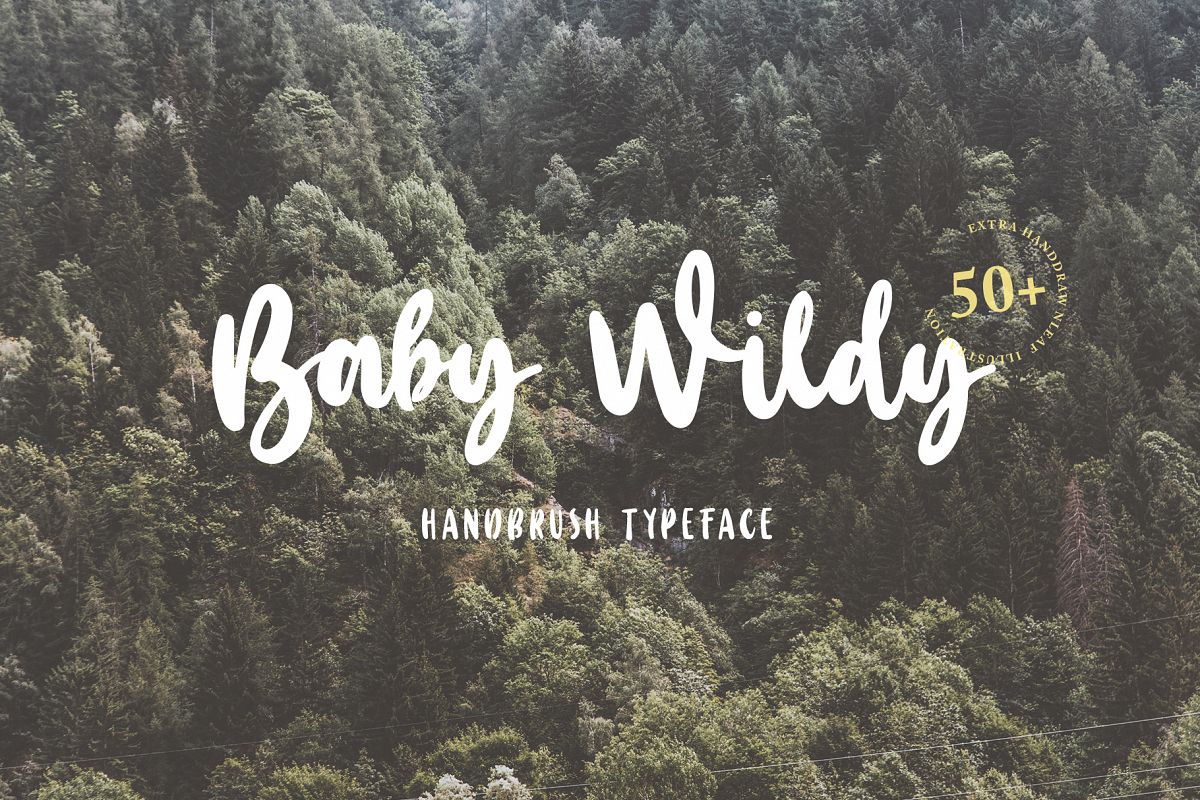
Baby Wildy
Hello friend, let me introduce my product Baby Wildy!
Baby Wildy is a handdrawn bold calligraphy font script, they have a verry handwritten character inspired by modern calligraphy style. Baby Wildy come with one font style, but if you're use the uppercase letter this font will form a sans character and will look like 2 different fonts.In this package include 50+ extra's handdrawn leaf illustration that will help you to create eye catching typography. Suitable and applicable to create typography design, social media feed, christmas card, branding, logos, product packaging, invitation, qoutes, t-shirt, label poster etc.
Feature :
• Punctuation and Number
• Multilingual Language
• Alternate Character & Ligature